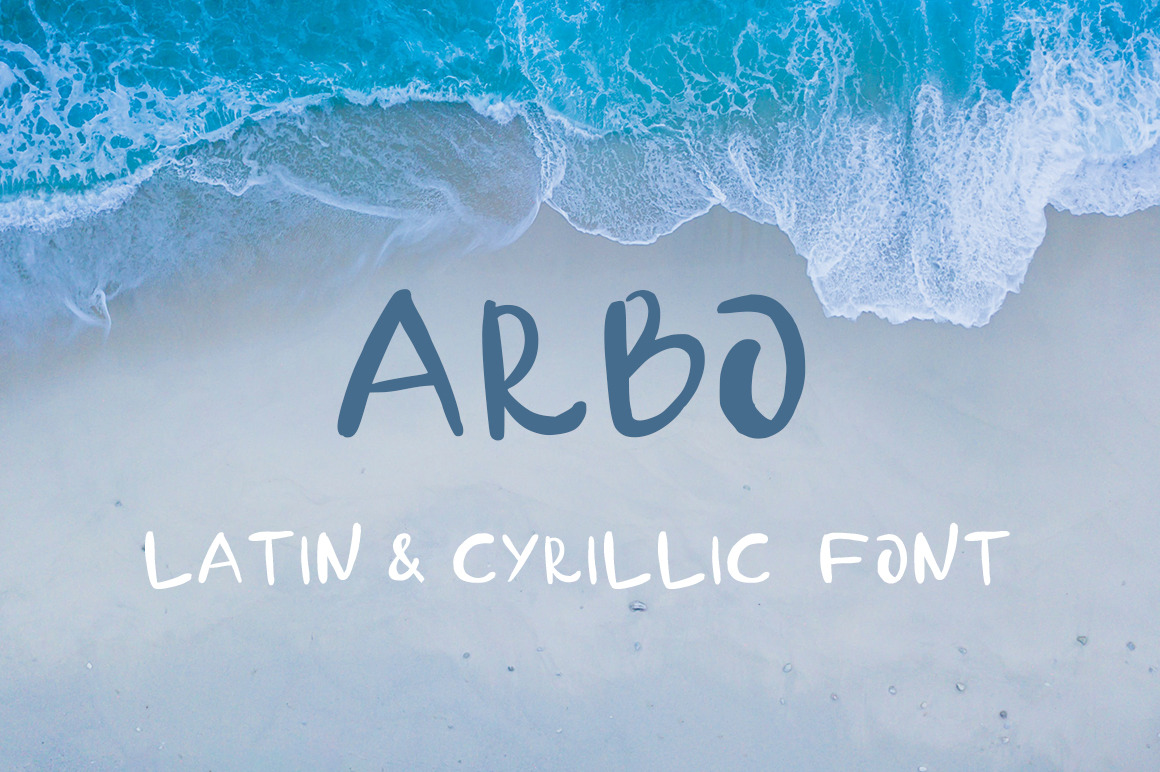
Arbo - handwritten font
Arbo is handwritten font for your creative projects. Perfect for lettering, prints and social media design. Features:
- Uppercase latin and cyrillic letters